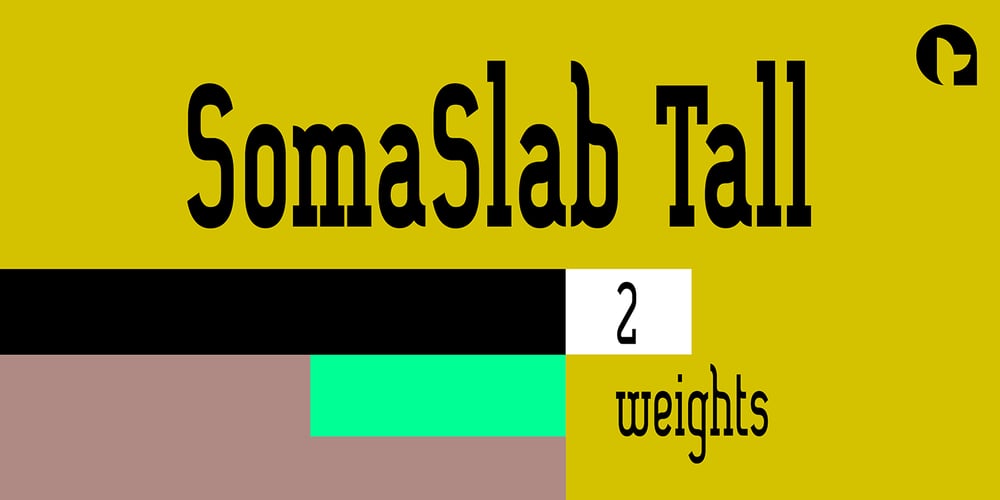
SomaSlab Tall
SomaSlab Tall font
SomaSlab Tall Font Family was designed by published by ArtyType. SomaSlab Tall contains 2 styles and family package options. SomaSlab Tall has all the same characteristics as SomaSlab, transferred into a style which has been condensed along the horizontal axis only. Available in 2 weights, XBold & Heavy, with an extended Latin character set and several glyph alternates for maximum versatility.